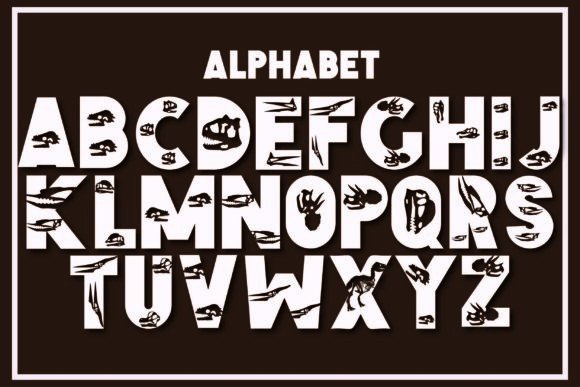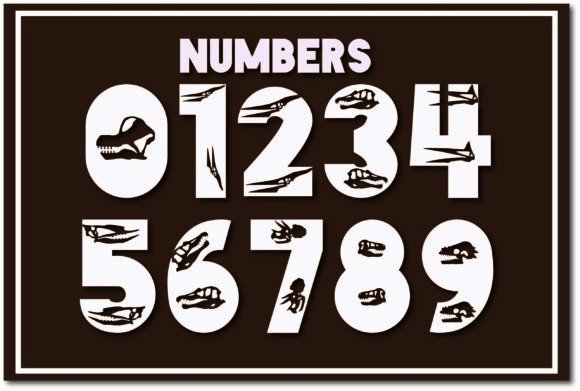
Unleash the Prehistoric Charm: Introducing Bone Dinosaur Font
Have you ever been brainstorming a creative project, only to be struck by a sudden idea that sends your imagination soaring? For designers, those ‘aha’ moments can be the spark that sets a project ablaze with excitement and energy. For me, it was the idea of bringing the Jurassic era to life with a font that’s as bold as it is charming – welcome the Bone Dinosaur Font.
This eye-catching decorative font is perfect for designers who want to add a prehistoric twist to their projects. With its unique, bone-inspired letter type, Bone Dinosaur Font is sure to make a lasting impression. Whether you’re working on a dinosaur-themed website, a children’s book, or even a movie poster, this font is an invaluable asset in your design toolkit.
Bone Dinosaur Font Key Features
- Font Style: Bone Dinosaur Font is a bold, sans-serif font designed to resemble dinosaur bones.
- Unique Characteristics: The font features intricate bone-like details, giving it a prehistoric and rugged feel.
Bone Dinosaur Font Review
I recently had the chance to work with the Bone Dinosaur Font, and I must say it’s a unique addition to any design project. ✨ The font’s prehistoric theme is a great conversation starter, and it’s sure to add some personality to your designs.
- ✨ Unique and quirky design that stands out from the crowd
- ✨ Perfect for projects that need a touch of nostalgia or a retro vibe
- ✨ Works well for headings and titles due to its bold and eye-catching design
However, I did encounter a few limitations while using the font. ⚠️ The font’s design can be a bit overwhelming if used in large blocks of text, and the irregular shapes can make it difficult to read for some users.
Limitsations:
- ⚠️ Can be overwhelming in large blocks of text
- ⚠️ Irregular shapes can make it difficult to read for some users
- ⚠️ May not be suitable for body text or long paragraphs
Overall, I’d say the Bone Dinosaur Font is a great addition to any design project that needs a unique and quirky touch. Just be mindful of its limitations and use it sparingly to avoid overwhelming your audience.
Use the Bone Dinosaur Font to add a playful touch to children’s book illustrations, educational materials, and family-friendly designs.
Pair the font with bold colors and fun graphics to create eye-catching designs.
Experiment with different font sizes and styles to add visual interest to your designs.
The Bone Dinosaur Font is perfect for:
Children’s book illustrations and educational materials.
Family-friendly designs and websites.
Playful social media graphics and advertisements.